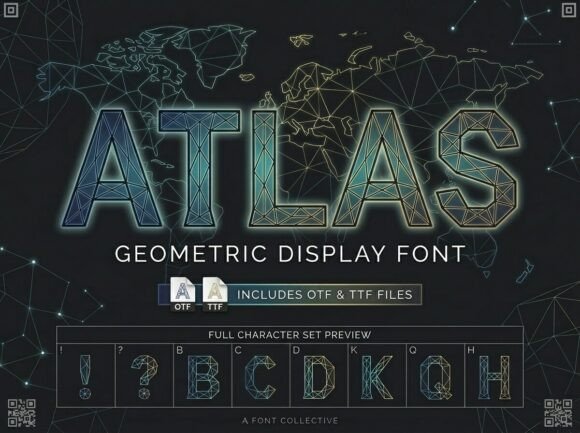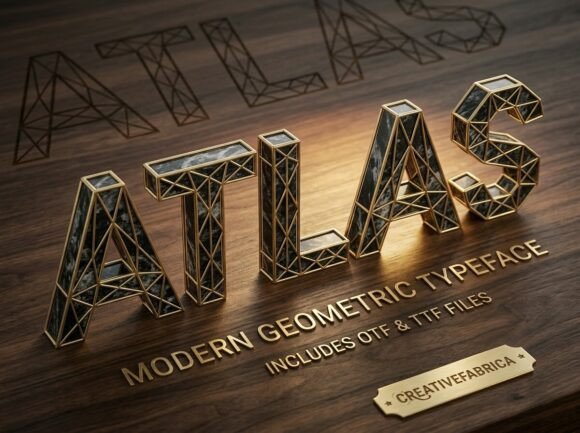
The Ultimate Display Font: Unleashing the Power of Atlas Font
Have you ever been in the middle of a design project, and suddenly, you’re stuck on finding the perfect font? I recall a particularly frustrating experience while working on a logo design for a boutique client. The brief was simple: create a bold, eye-catching logo that screams luxury and sophistication. But, as I scrolled through my font library, nothing seemed quite right. That’s when I stumbled upon the Atlas Font, and it was love at first sight! 💕
What Makes Atlas Font Special?
Atlas Font is a stunning decorative display font that is sure to turn heads. Its unique artistic elements and strong visual personality make it perfect for creators who want to break away from the ordinary. This font is versatile enough for bold headlines, artistic logos, and creative packaging, while maintaining a professional and polished finish.
- ✨ Unique and artistic design that stands out from the crowd.
- ✅ Professional and polished finish.
- 💥 Perfect for bold headlines, artistic logos, and creative packaging.
- ⚠️ IMPORTANT NOTE: This font is an ALL-CAPS (Uppercase Only) display typeface. It does not include lowercase letters.
- 🤔 Limited use cases due to the lack of lowercase letters.
The Designer Inspiration Behind Atlas Font
Atlas Font was designed with the intention of creating a bold and eye-catching display font that would inspire creativity and luxury. The designer aimed to craft a font that would be perfect for high-impact headlines, logos, and decorative initials. With its unique artistic elements and strong visual personality, Atlas Font is sure to make a statement in any design project.
Q: Is Atlas Font suitable for body text?
A: No, Atlas Font is a display font designed for headlines, titles, and decorative elements. It’s not recommended for body text due to its bold and artistic nature.
Q: Does Atlas Font include lowercase letters?
A: No, Atlas Font is an ALL-CAPS (Uppercase Only) display typeface and does not include lowercase letters.